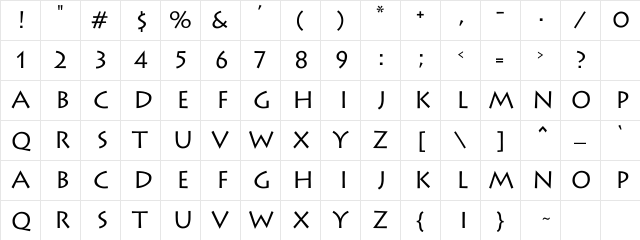
LithographMedium Regular
Design Context for LithographMedium
LithographMedium is a composed and adaptable typeface that performs quietly and consistently across a wide range of design contexts.